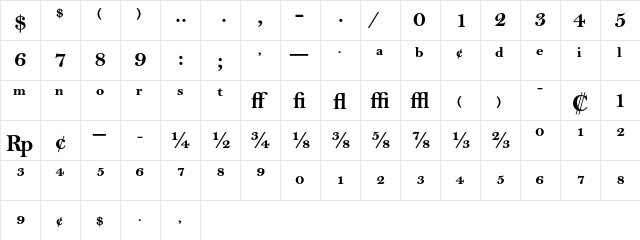
Bell MT Bold Expert
Design Context for Bell MT Typeface
Bell MT takes a measured approach to typography — its balanced proportions and neutral character make it a reliable workhorse for both digital and print work. The heavy weight commands attention and anchors typographic hierarchies.